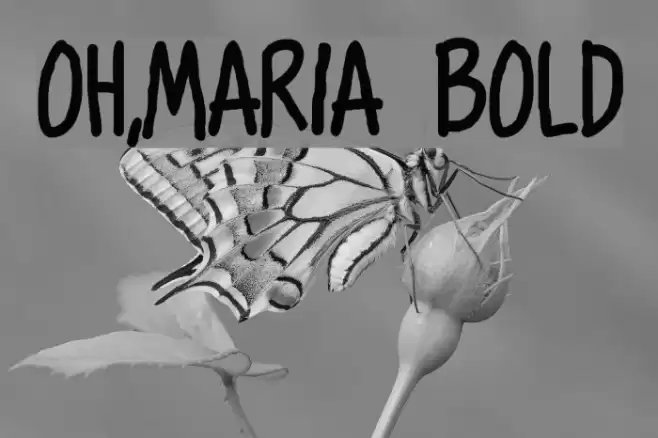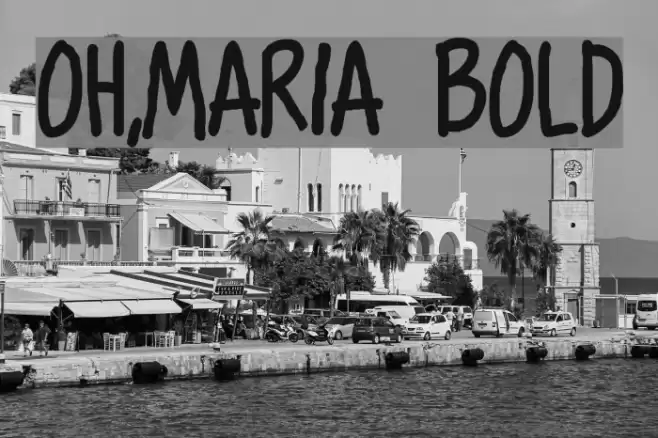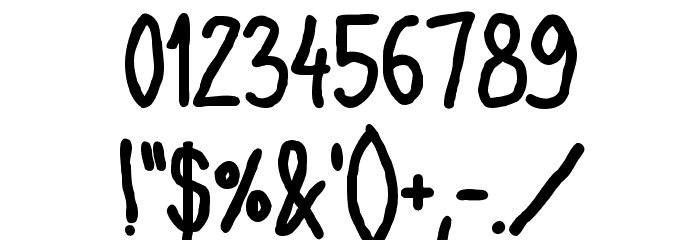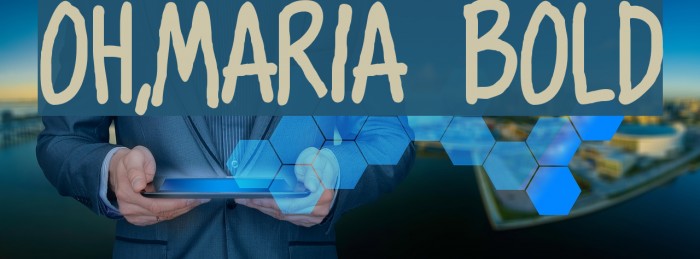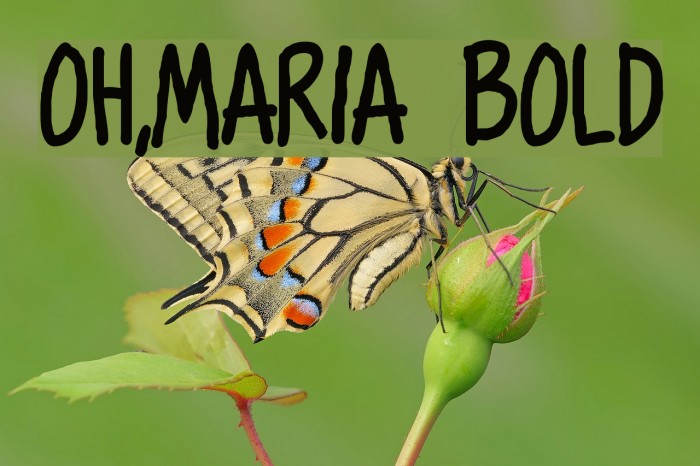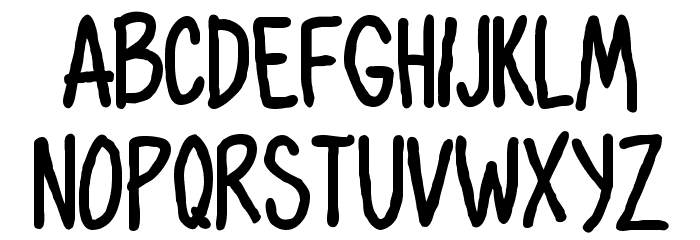
Oh,Maria Bold Font
Oh,Maria Bold Description
This font features a playful and casual handwritten style, characterized by its bold and slightly irregular strokes. The letters are rounded with a consistent thickness, giving it a friendly and approachable appearance. The uppercase and lowercase letters maintain a uniform height, creating a cohesive look. The numerals and special characters are designed to match the overall style, ensuring versatility across various uses. This font's informal nature makes it ideal for projects that require a personal touch or a relaxed vibe.
A bold, playful handwritten font with rounded, consistent strokes from Uncategorized fonts.
- Proposed Projects: Ideal for greeting cards, children's books, casual branding, and social media graphics.
- Overall Style: Casual, Playful
- Use Case: Logos, Headlines, Informal Text